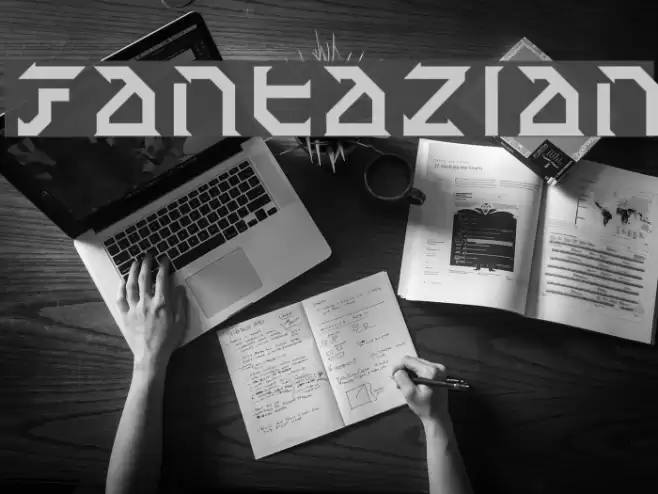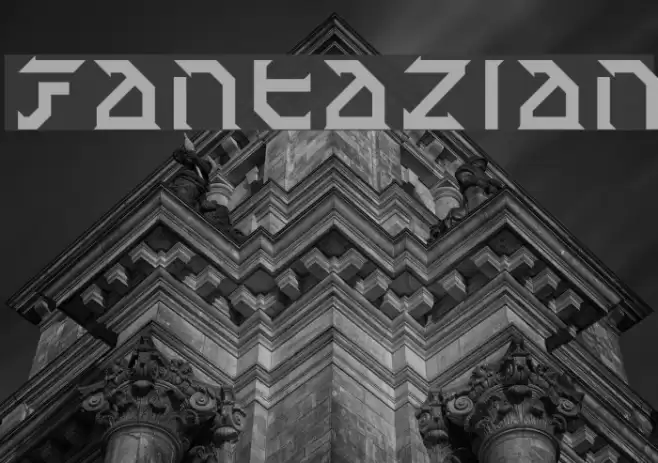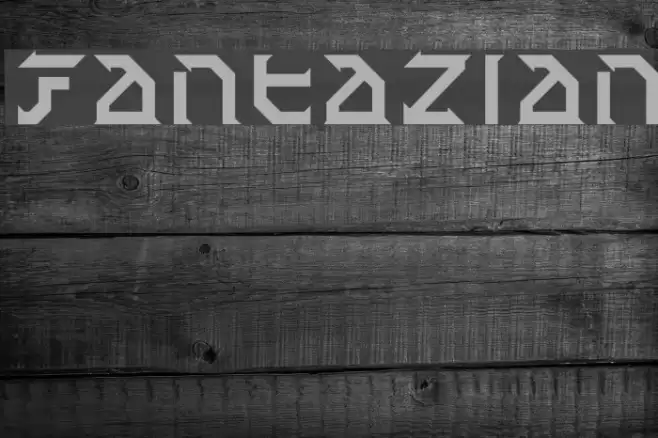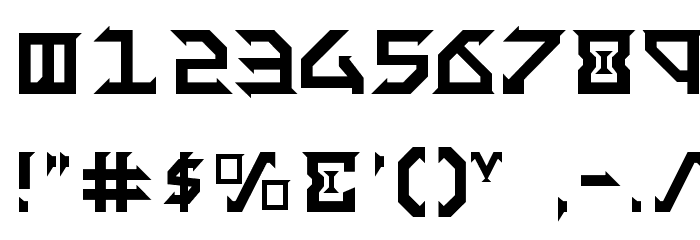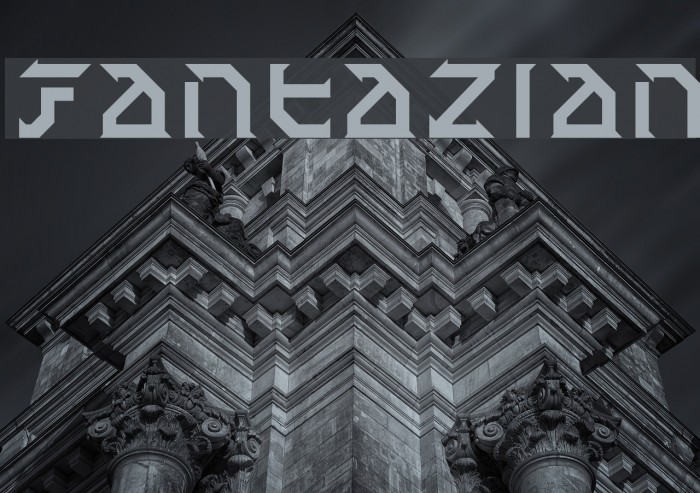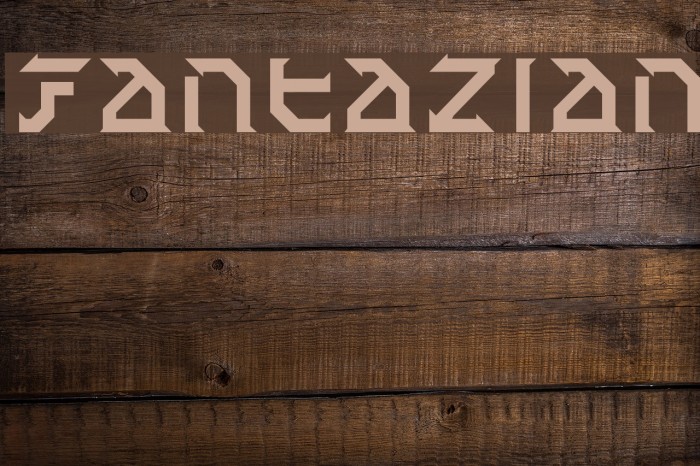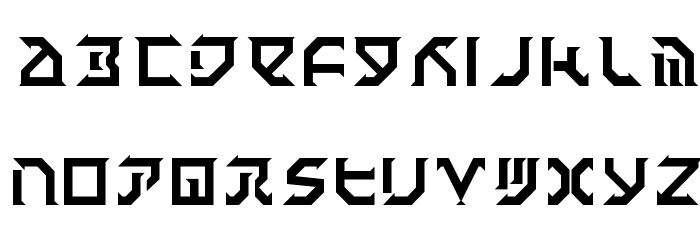
Fantazian Font
Fantazian Description
This font features a bold and angular design with sharp, geometric edges that create a futuristic and dynamic appearance. The characters are constructed with a distinct blocky style, incorporating diagonal cuts and pointed terminals that enhance its modern aesthetic. The uppercase and lowercase letters maintain a consistent design language, while the numerals and special characters follow suit with similar angularity and boldness. This font's unique style makes it stand out, offering a visually striking option for creative projects.
A bold, angular font with a futuristic and geometric design from Uncategorized fonts.
- Proposed Projects: Ideal for sci-fi themed posters, video game titles, branding for tech companies, and modern graphic design projects.